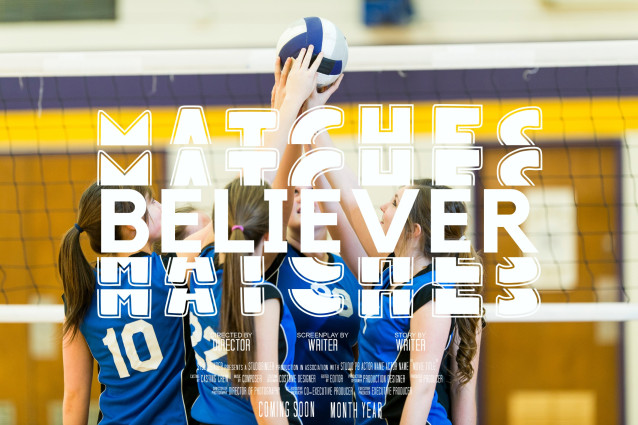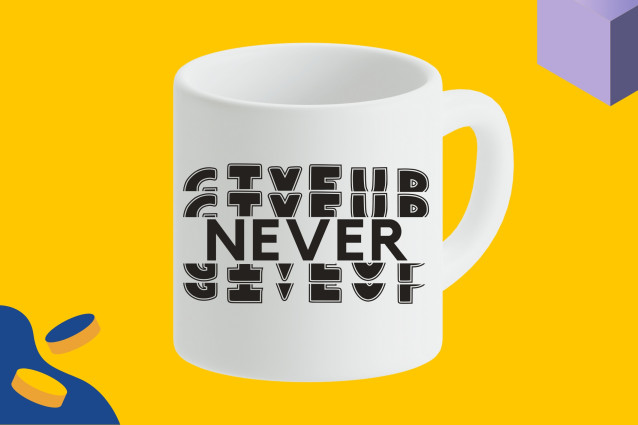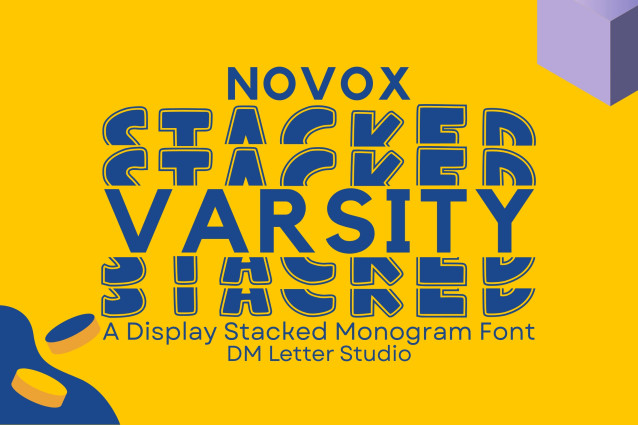
Novox Varsity Stacked Monogram Font
Novox Varsity Stacked Monogram is a powerful and dynamic font that captures the energy of classic collegiate lettering in a stacked monogram style. With strong lines and layered depth, this typeface is perfect for school spirit designs, team logos, sports merchandise, varsity apparel, and personalized gifts that need a confident, bold presence.